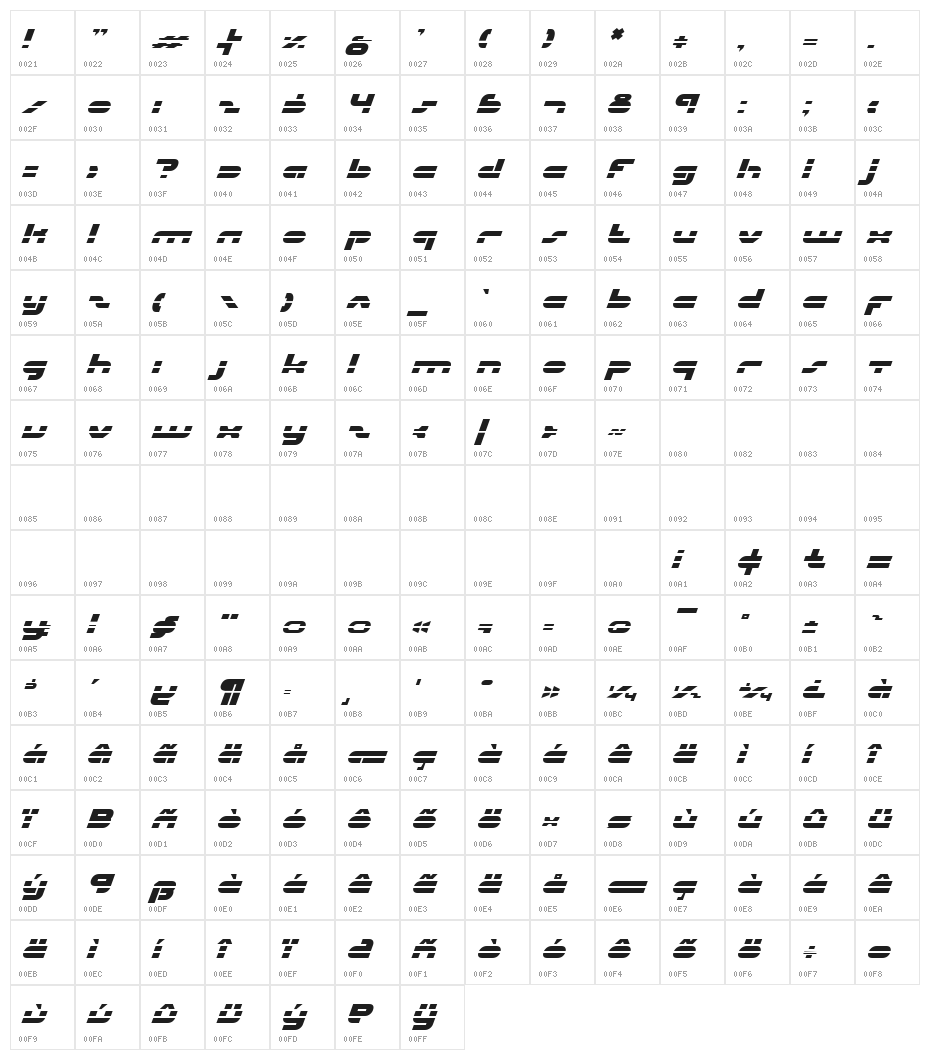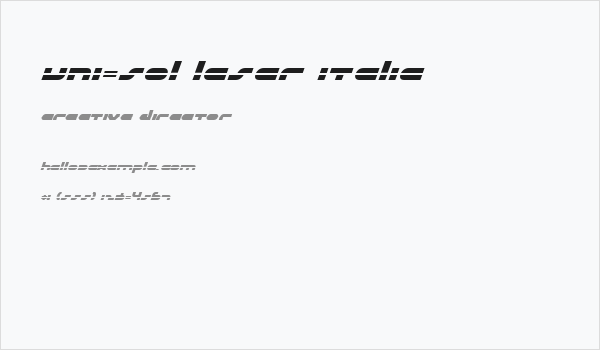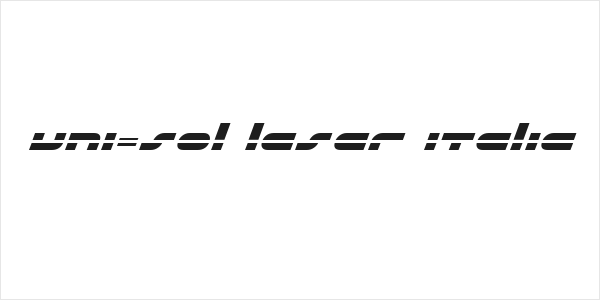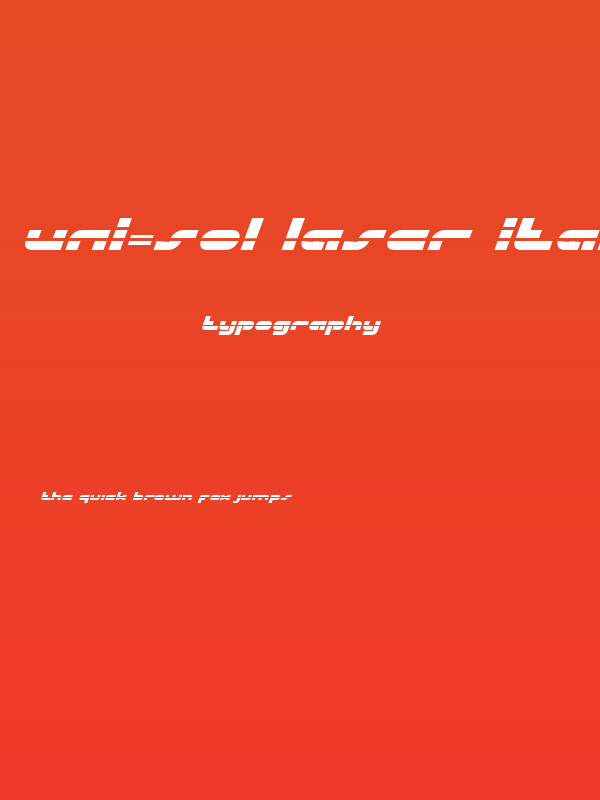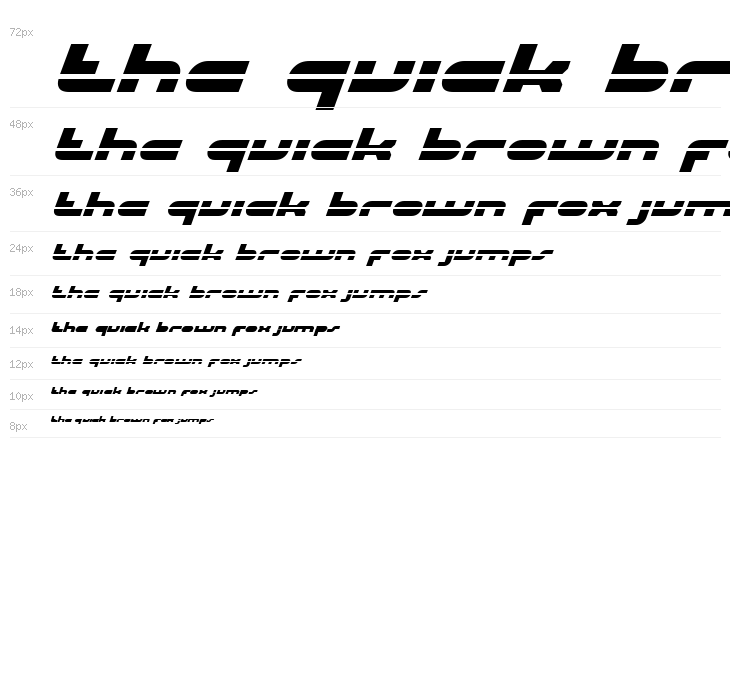
uni-sol laser italic Font
uni-sol laser italic Description
This font features a futuristic and dynamic style with a strong emphasis on angular and geometric forms. The characters are designed with sharp edges and a slanted orientation, giving a sense of motion and speed. The strokes are bold and consistent, creating a striking visual impact. The font maintains a uniform thickness throughout, contributing to its modern and sleek appearance. The spacing between characters is tight, enhancing the compact and cohesive look. This font is well-suited for projects that require a bold and contemporary aesthetic.